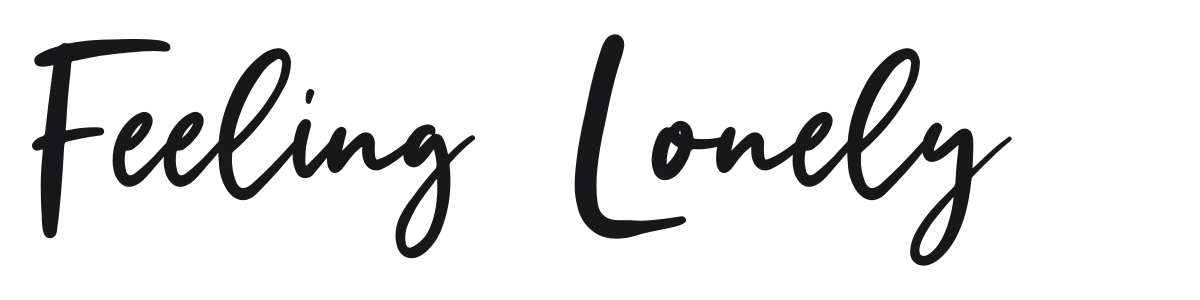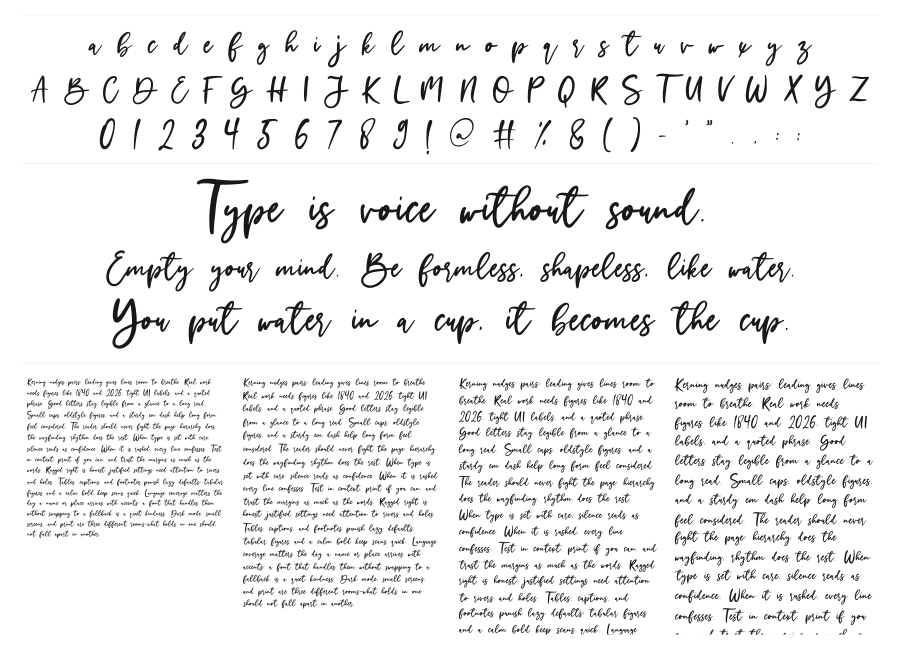
Feeling Lonely
Feeling Lonely is a contemporary casual script with a lively bouncing baseline and fluid connected strokes. The generous swashes on ascenders and descenders give it an expressive, handwritten energy that feels both personal and polished. It reads warm and approachable at large sizes, suited to branding, packaging, and social media graphics in lifestyle and beauty contexts.